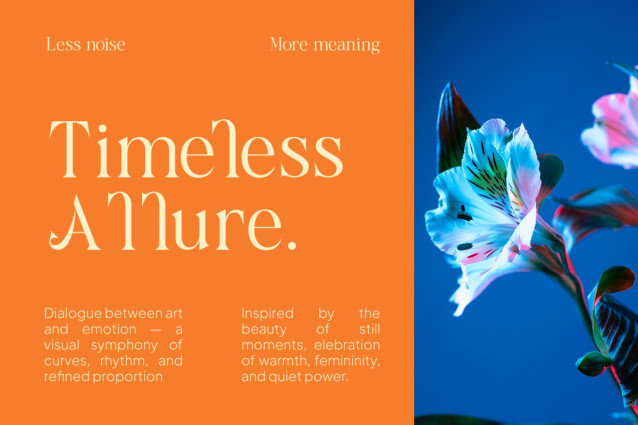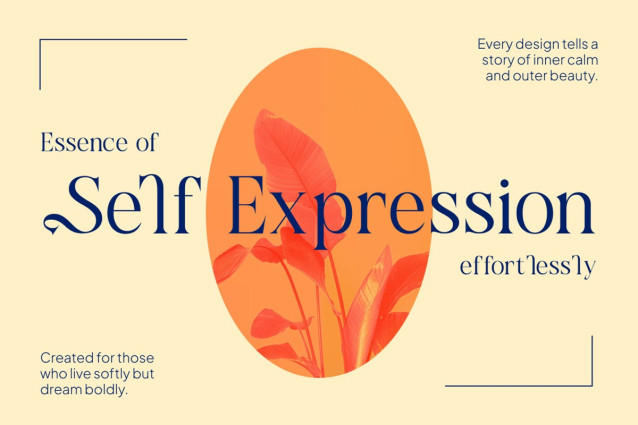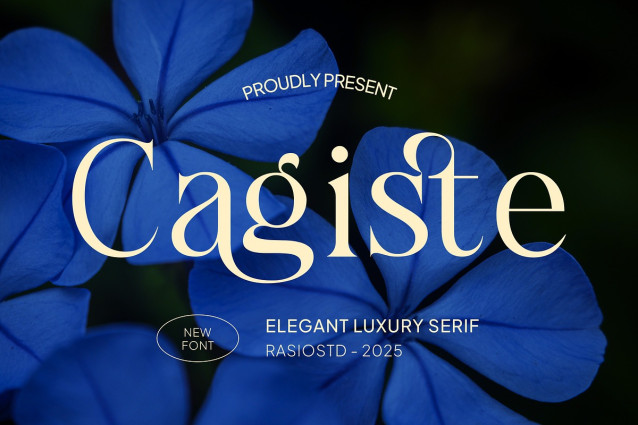
Cagiste Font
Cagiste Font is a refined luxury serif font designed to express elegance, calm, and timeless beauty. Featuring graceful curves, high-contrast strokes, and delicate serif details, this typeface blends classic sophistication with a modern editorial feel. Its balanced proportions and smooth letterforms make Cagiste ideal for premium branding, fashion layouts, and high-end visual storytelling.
Cagiste is designed for projects that require a sense of luxury, elegance, and emotional calm. Its refined serif structure works beautifully for fashion branding, beauty products, editorial layouts, wedding designs, and premium marketing materials where visual sophistication and clarity are essential.